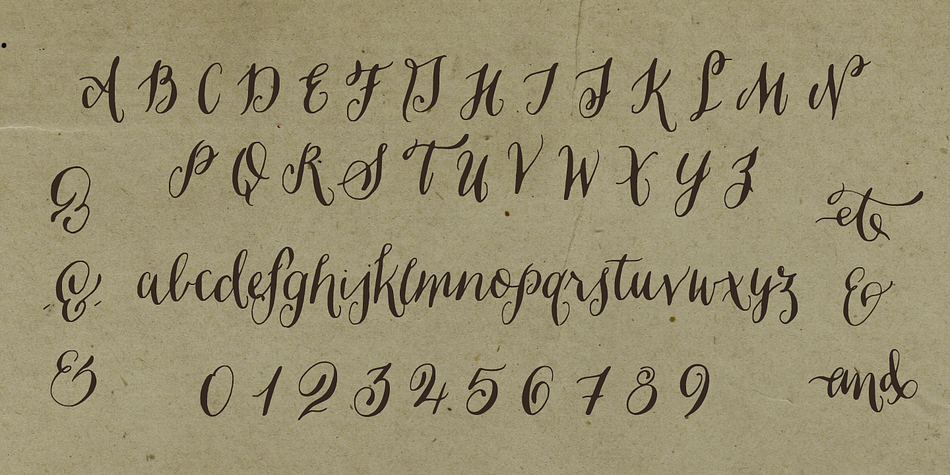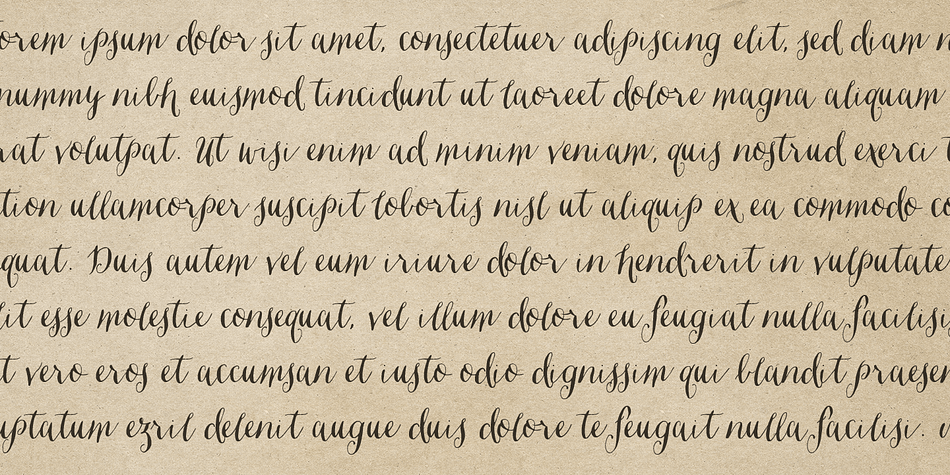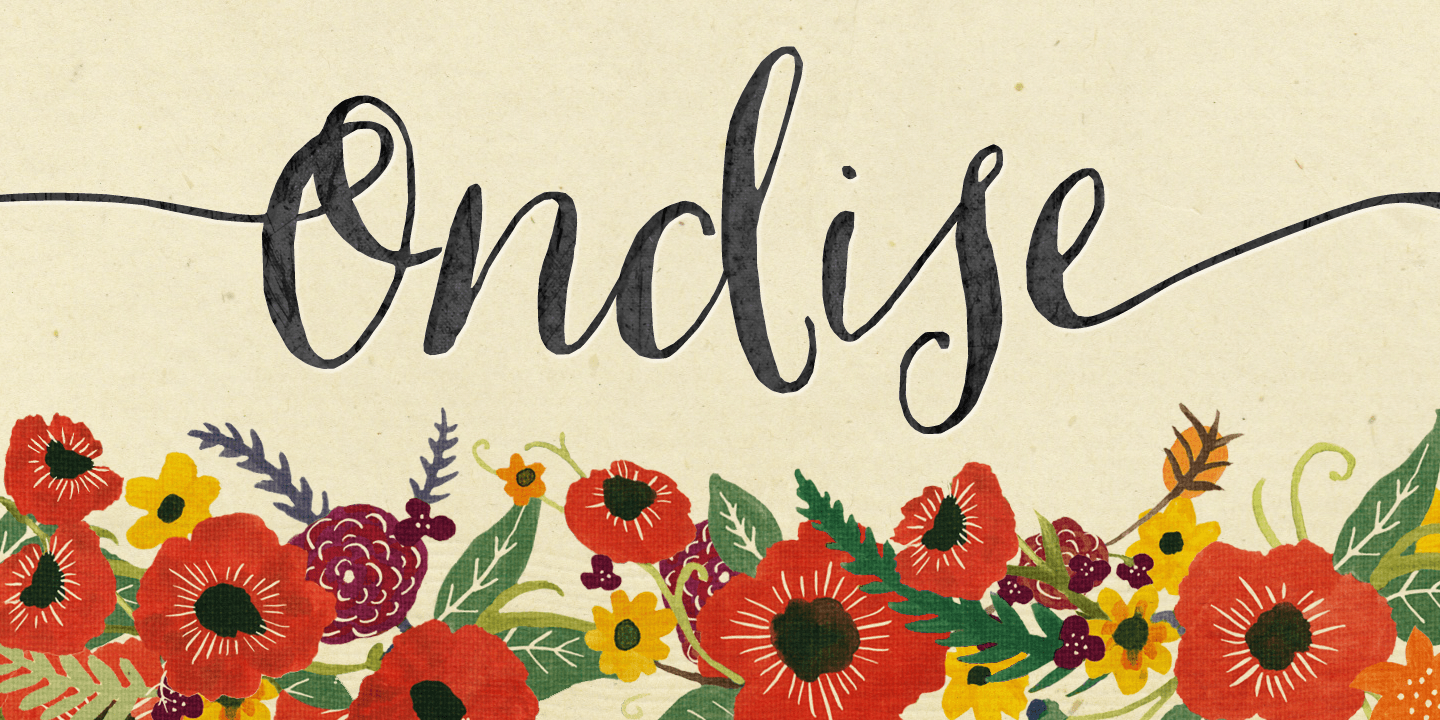
Ondise is a script and modern calligraphy font published by Magpie Paper Works.
Ondise is a curvy and warm hand-lettered calligraphy script with a natural, dancing baseline. This Opentype font was created with a pointed pen & ink, and includes six different ampersands as well as a swash feature that automatically substitutes beginning & end of word letters.
To enable alternate ampersands, simply turn on the contextual alternates feature and type &1, &2, &3, etc. Opentype coding automatically substitutes the new ‘and’.